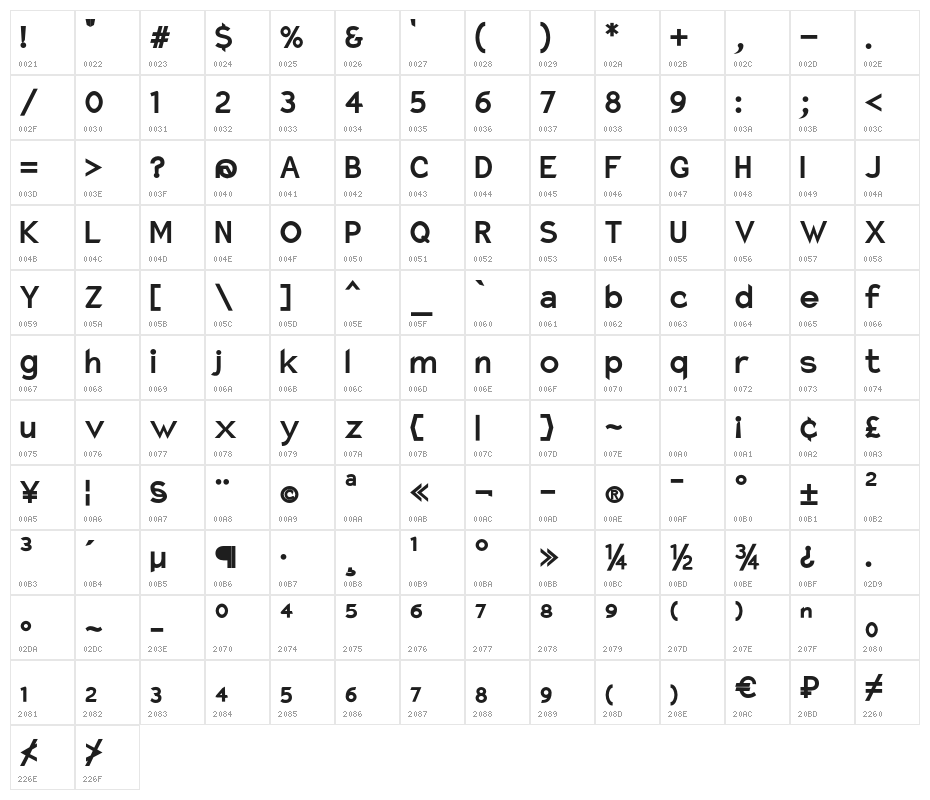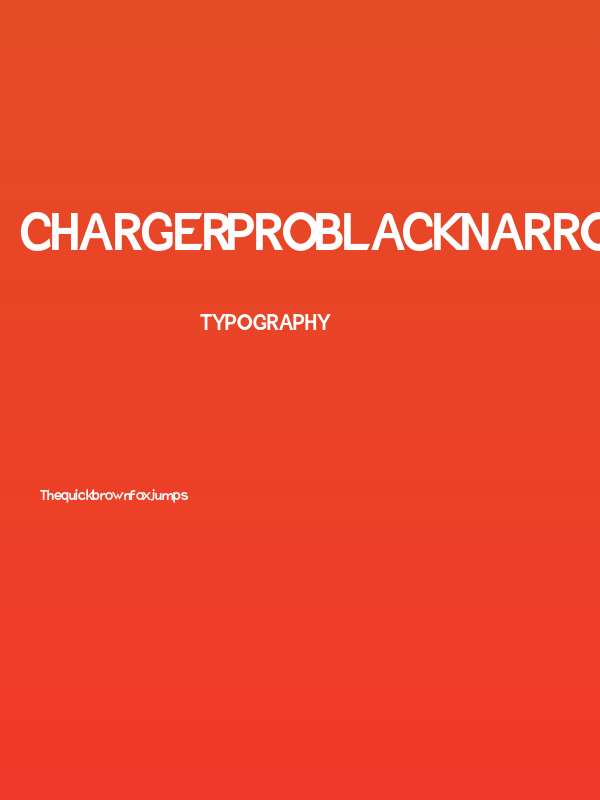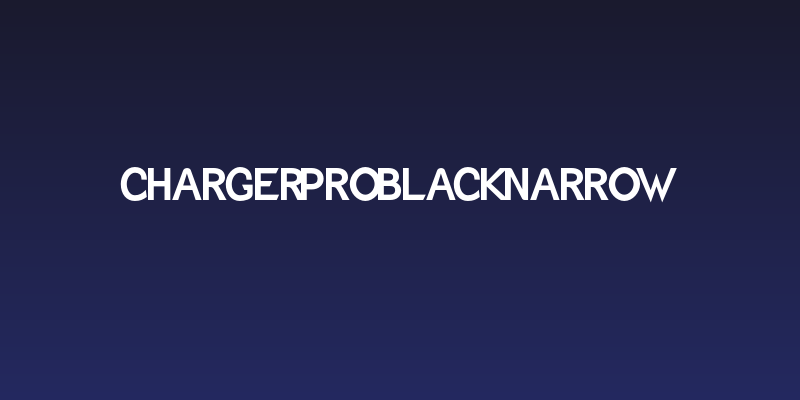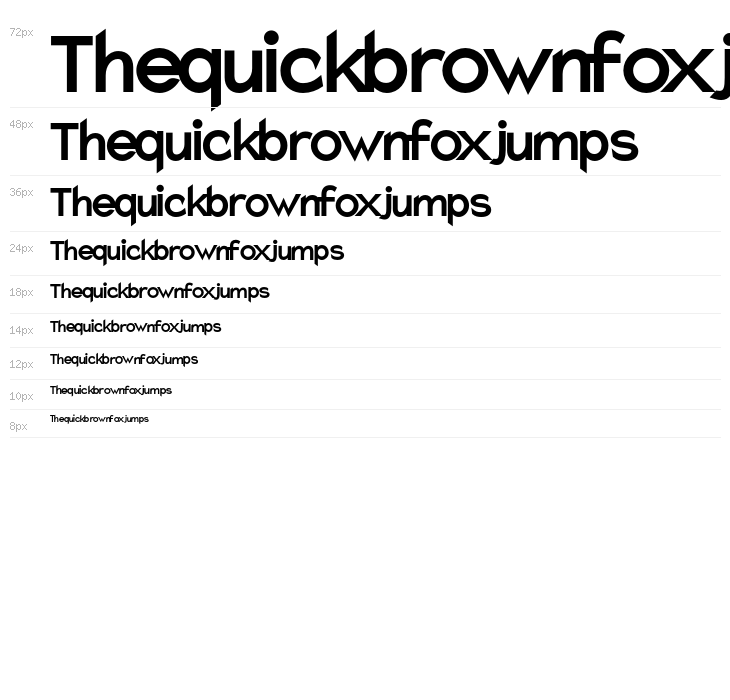
Charger Pro Black Narrow Font
Charger Pro Black Narrow Description
This font features a bold and narrow design, characterized by its strong geometric shapes and clean lines. The uppercase letters are tall and imposing, while the lowercase letters maintain a consistent height, contributing to a uniform appearance. The numerals are equally bold, ensuring readability and impact. Special characters are designed with the same attention to detail, making them stand out while maintaining harmony with the rest of the set. The overall look is modern and assertive, suitable for making a statement.